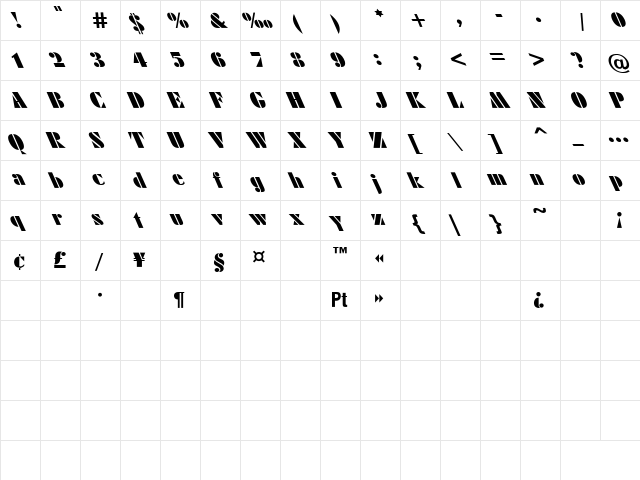
Futuri-Black-Leftified at Night Regular
Design Context for Futuri-Black-Leftified at Night Typeface
Futuri-Black-Leftified at Night channels digital-age aesthetics through its sharp, structured letterforms — ideal for brands that want to signal innovation.
Pro Tip: Try Futuri-Black-Leftified at Night with generous letter-spacing in UI labels and navigation — the geometric forms benefit from room to breathe.